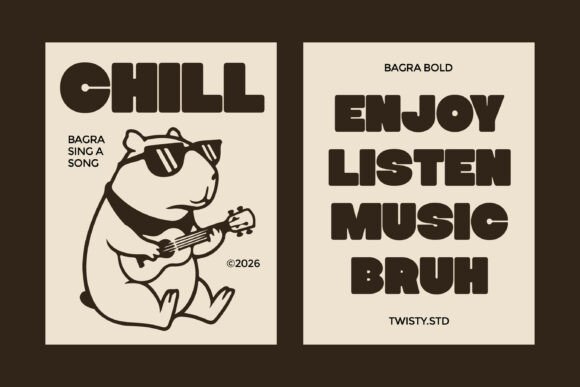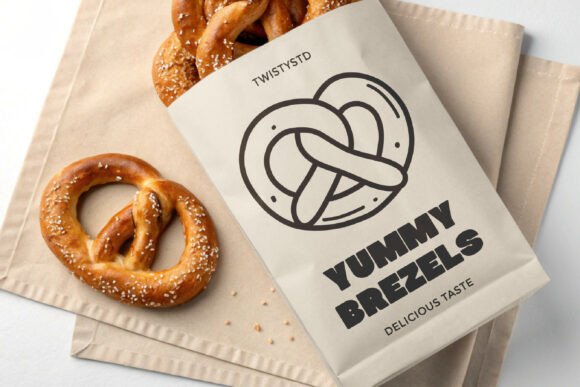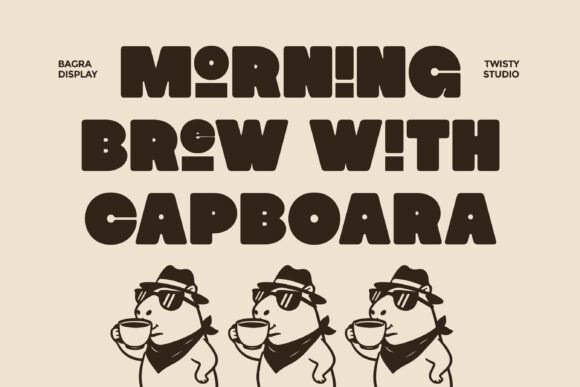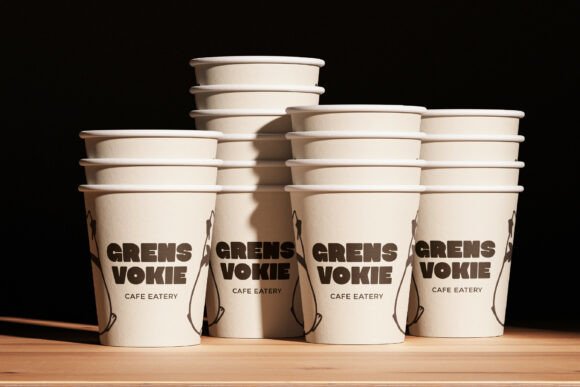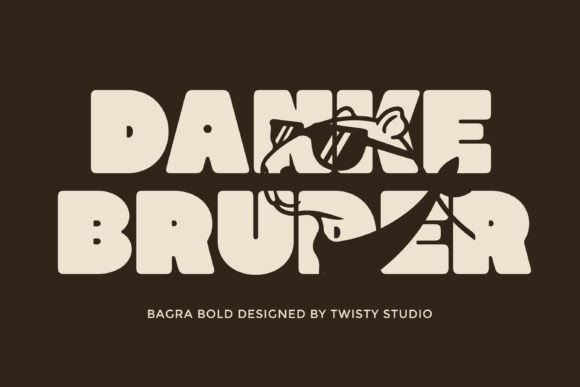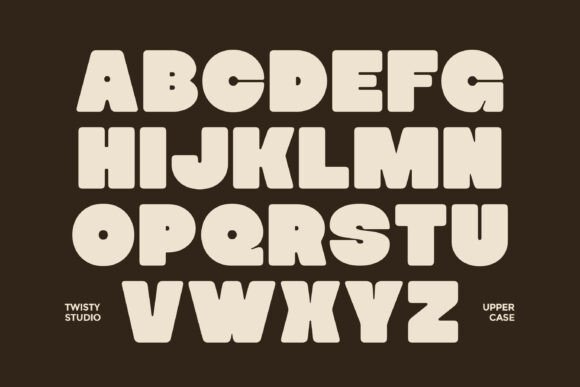
Introducing Bagra Font: The Ultimate Bold Display Font for Strong Visual Impact
In the world of typography, a good font can make all the difference in creating a lasting impression. For designers and crafters looking for a bold and attention-grabbing font, look no further than Bagra Font. Designed to deliver a strong visual impact and clear typographic presence, Bagra is the perfect choice for display purposes.
What is Bagra Font?
Bagra is a bold display font that boasts solid letterforms, clean structure, and a confident style. Its modern design makes it an excellent choice for headlines, titles, and other display purposes where a strong visual impact is desired. With its sleek and clean lines, Bagra Font is sure to grab attention and leave a lasting impression.
Key Features of Bagra Font
- Bold and Attention-Grabbing: Bagra Font is designed to be bold and attention-grabbing, making it perfect for display purposes.
- Clean Structure: The font features a clean structure that ensures clarity and legibility, even at large sizes.
- Modern Design: Bagra Font has a modern design that is sure to appeal to designers and crafters looking for a fresh and contemporary look.
- Versatile: The font is versatile and can be used for a wide range of projects, from branding and advertising to packaging and signage.
Uses of Bagra Font
Bagra Font is perfect for a wide range of design projects, including:
- Headlines and Titles: Use Bagra Font to create bold and attention-grabbing headlines and titles that are sure to grab attention.
- Branding and Advertising: The font is perfect for branding and advertising projects where a strong visual impact is desired.
- Packaging and Signage: Bagra Font can be used for packaging and signage projects where a bold and attention-grabbing font is needed.
- Digital Media: The font can also be used for digital media projects, such as social media graphics and video titles.
Why Choose Bagra Font?
There are many reasons why designers and crafters should choose Bagra Font for their projects. Here are just a few:
- Unique and Modern Design: Bagra Font has a unique and modern design that is sure to set your project apart from the rest.
- High-Quality: The font is of high-quality and is designed to deliver a strong visual impact and clear typographic presence.
- Easy to Read: Despite its bold design, Bagra Font is easy to read and is clear even at large sizes.
- Versatile: The font is versatile and can be used for a wide range of projects.
Tips for Using Bagra Font
Here are a few tips for using Bagra Font in your design projects:
- Use it for Display Purposes: Bagra Font is designed for display purposes, so use it for headlines, titles, and other display text.
- Experiment with Different Sizes: The font is designed to be clear and legible even at large sizes, so experiment with different sizes to find the one that works best for your project.
- Pair it with Other Fonts: Bagra Font can be paired with other fonts to create a unique and interesting look.
In conclusion, Bagra Font is a bold and attention-grabbing font that is perfect for designers and crafters looking for a strong visual impact and clear typographic presence. With its modern design, clean structure, and confident style, Bagra Font is sure to deliver a lasting impression. Whether you’re working on a branding project, advertising campaign, or packaging design, Bagra Font is a great choice.